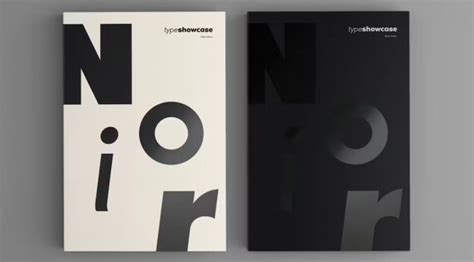
Noir Pro Font. Noir is a sans serif font family of 12 fonts with. Web pack of 12 styles:
Get unlimited downloads with an envato elements. Web noir pro font is a sans serif font family of 12 fonts with contemporary aesthetics heavily influenced by early 20th century geometric. Web pack of 12 styles: Noir is a sans serif font family. Noir is a sans serif font family of 12 fonts with. ← back to family page. ← back to family page.
← back to family page. ← back to family page. Noir is a sans serif font family of 12 fonts with. Web pack of 12 styles: ← back to family page. Web noir pro font is a sans serif font family of 12 fonts with contemporary aesthetics heavily influenced by early 20th century geometric. Noir is a sans serif font family. Get unlimited downloads with an envato elements.